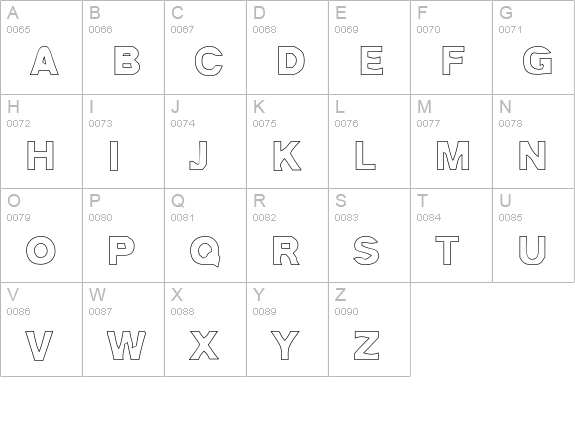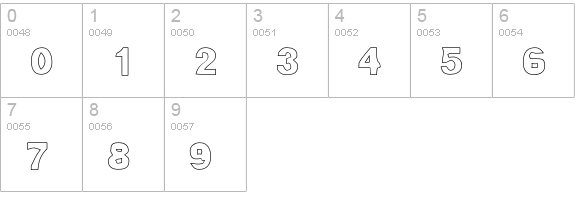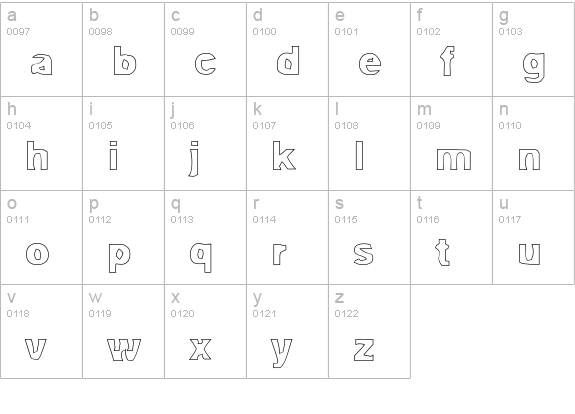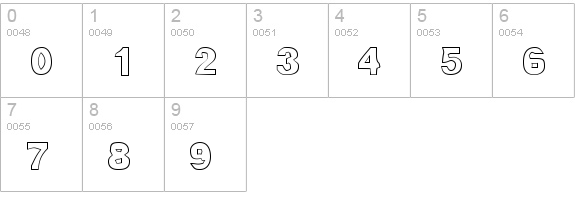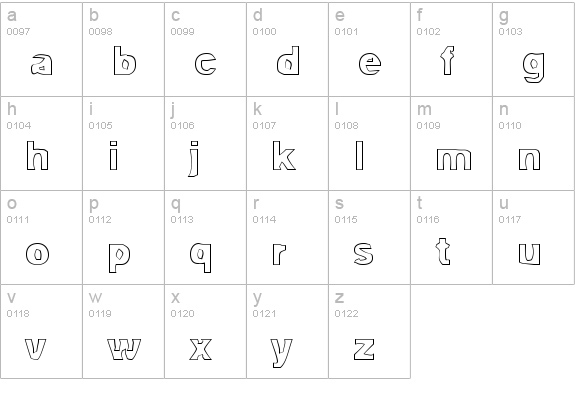
Autotrace-Outline font is a sleek and modern typeface that exudes sophistication and elegance. This font features clean lines and sharp edges, making it perfect for a wide range of design projects. Whether you're designing a sleek logo, a stylish poster, or a professional website, Autotrace-Outline font will add a touch of refinement to your work. The best part is that Autotrace-Outline font is completely free to download at FontsMarket.com. This means you can easily access this high-quality font without having to worry about any costs. With its versatility and timeless appeal, Autotrace-Outline font is sure to become a staple in your design toolkit. Download it today and elevate your projects with this premium typeface.